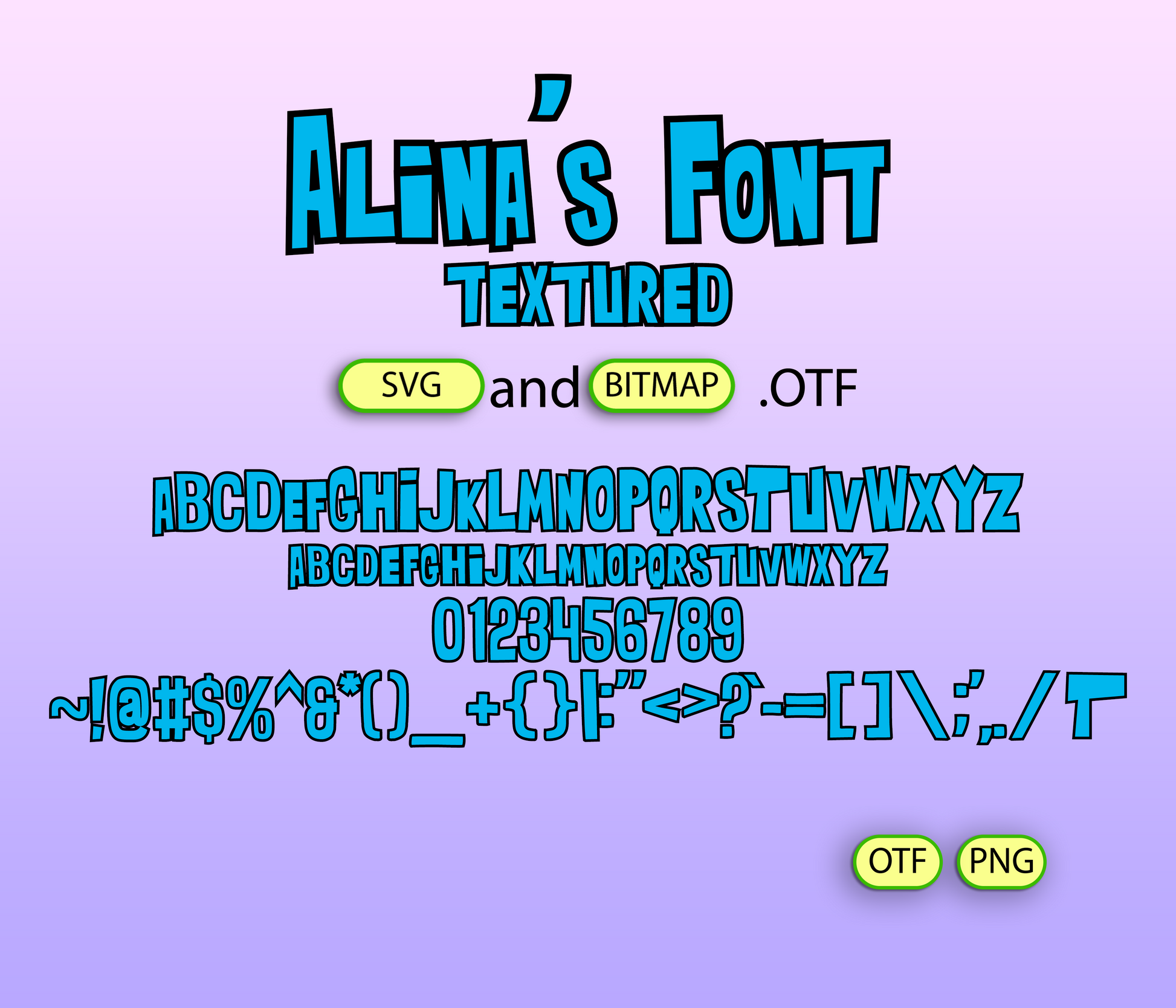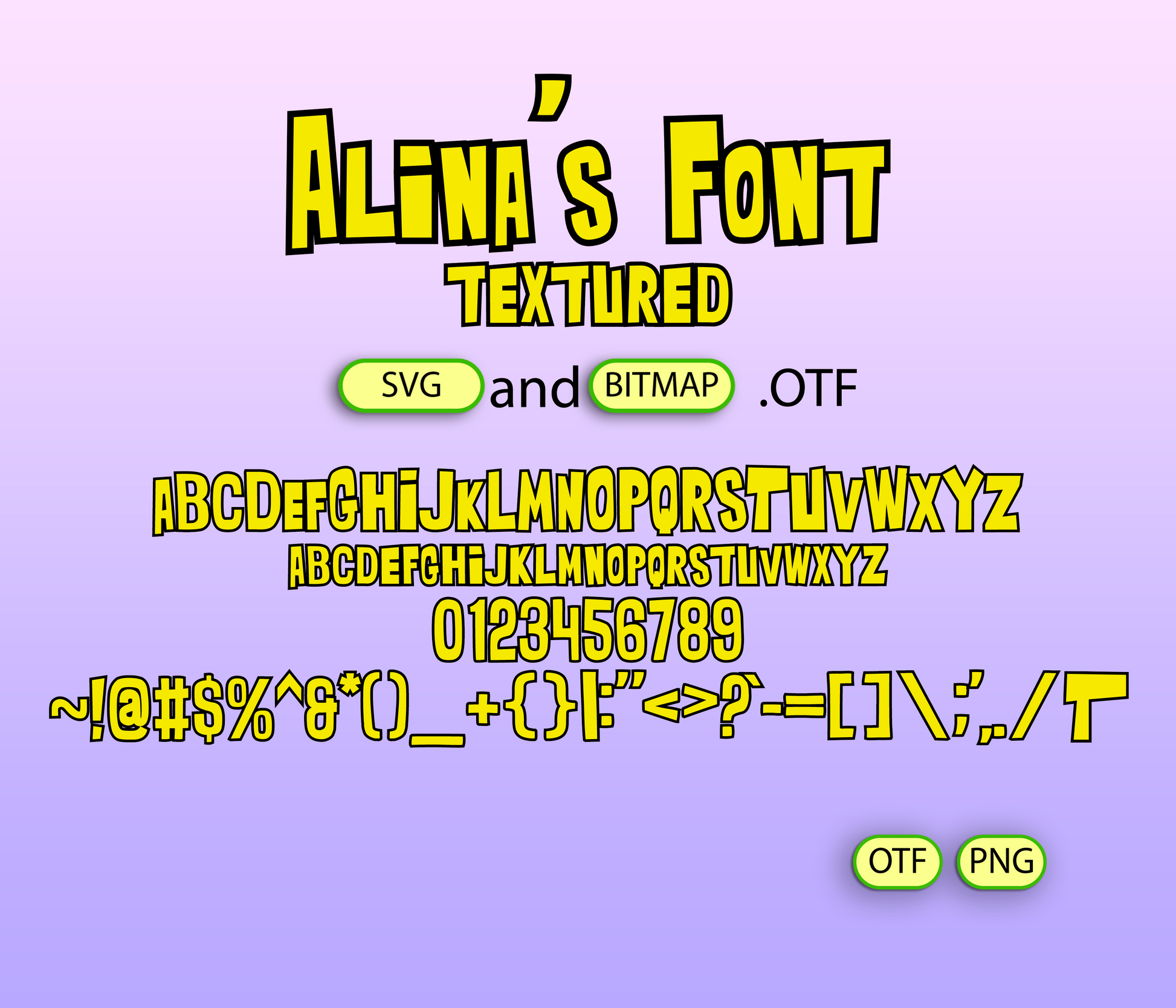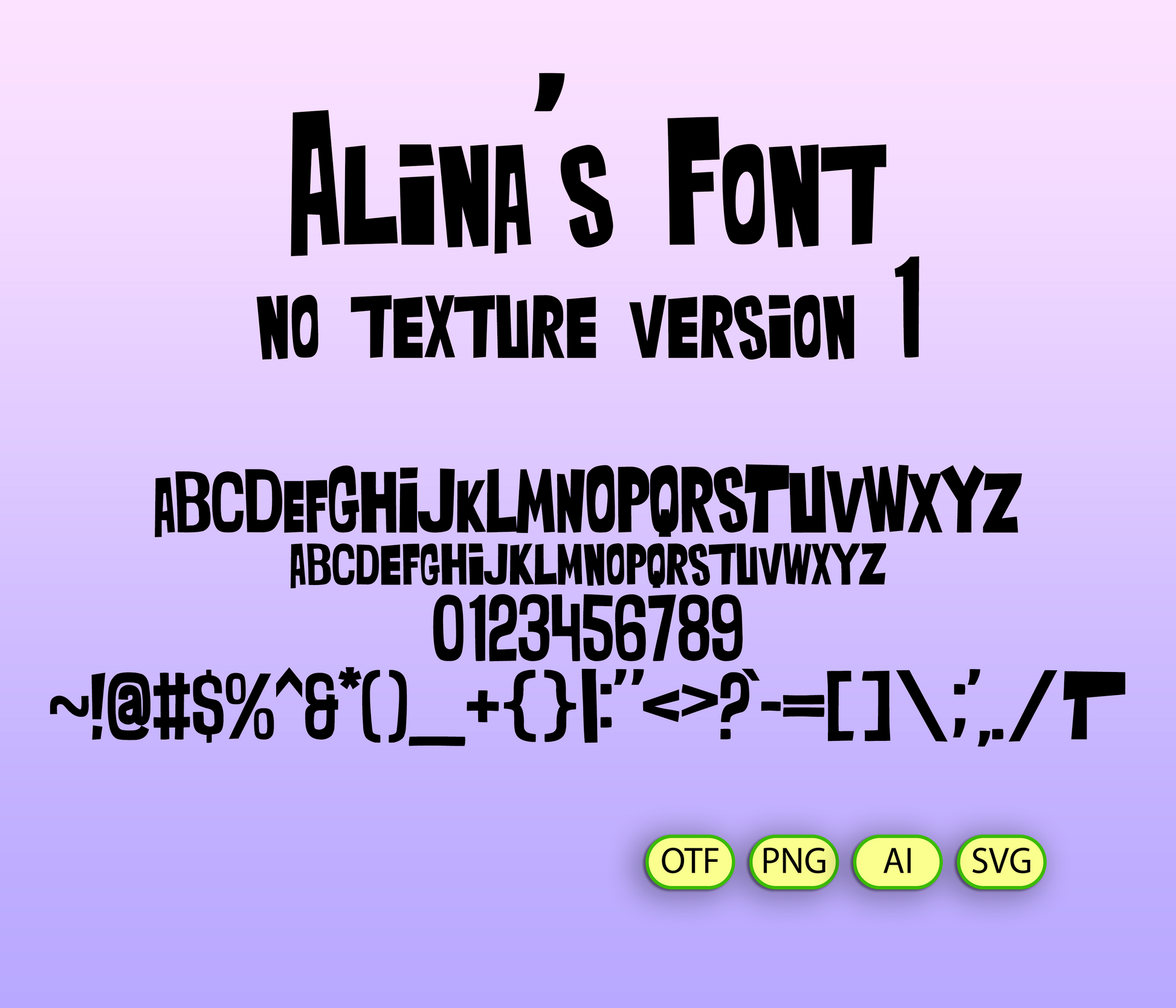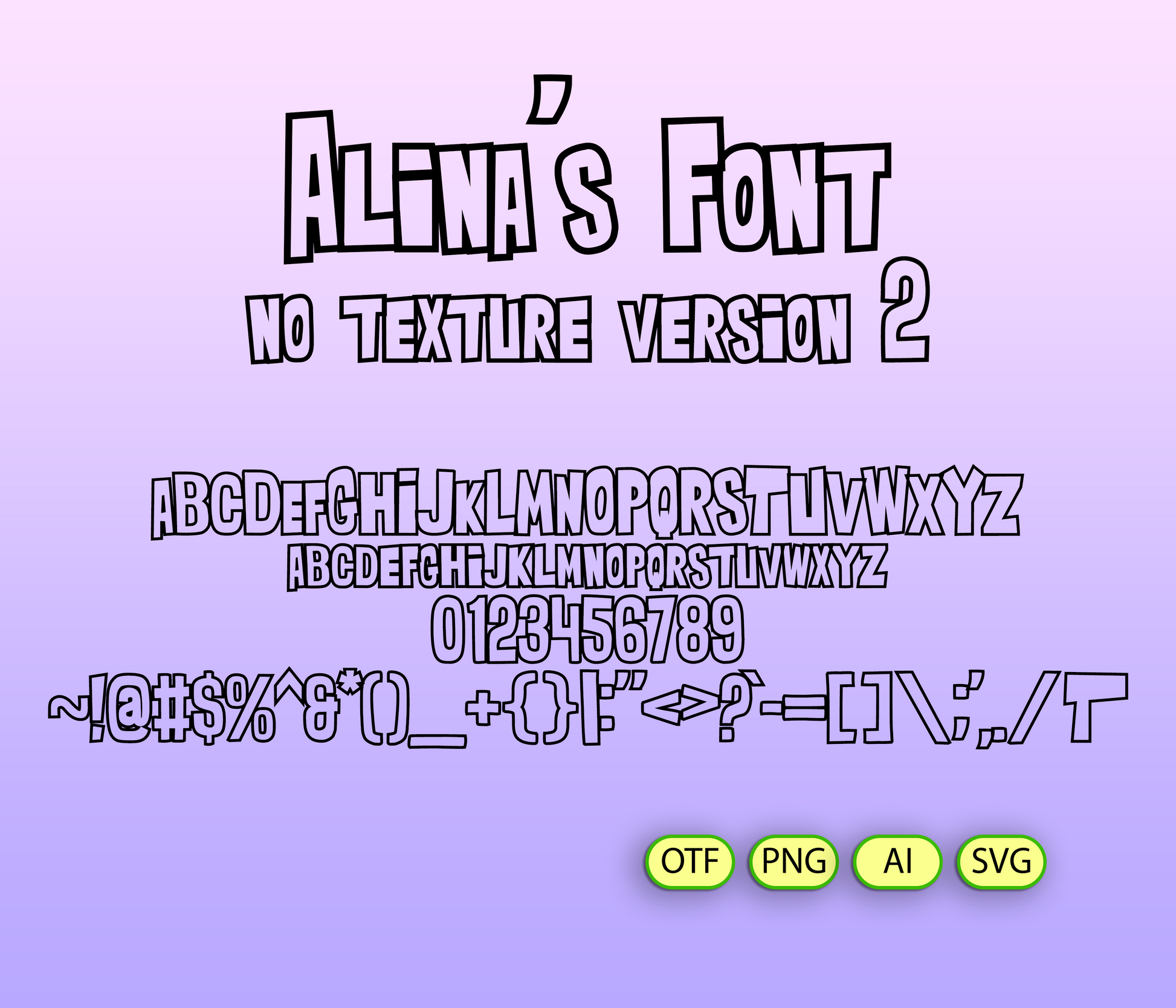
Teen Heroes Adventure Font Textured Bundle
Step into the whimsical world of young superheroes with our Teen Heroes Adventure font, capturing the essence of hilarious crimefighting and animated mischief. Perfect for animation fans, comic creators, event organizers, and designers, this font brings the dynamic, comedic spirit of these beloved young heroes to your projects. Create cartoon-themed materials, merchandise, or digital content with the high-energy fun of these teenage champions.
Our Teen Heroes Adventure font features playful, bouncy lines and energetic characters reflecting the comedic world of these young champions. Ideal for:
- Event Promotions: Create fun-filled invites, posters, and banners for animation screenings, comic conventions, and themed parties that capture the spirit of teen heroics.
- Merchandise Design: Perfect for t-shirts, posters, and accessories that showcase the silly side of superhero life.
- Digital Media: Enhance websites, blogs, and social media with dynamic headers and graphics that express the joy of animated adventures.
- Animation Content: Add authentic flair to fan art, comic strips, and creative projects inspired by teenage superhero antics.
- Personal Projects: Bring superhero excitement to scrapbooking, DIY crafts, and home decor inspired by the world of young justice.
Our font pays tribute to the beloved world of teenage superhero comedy, empowering your designs with its playful and energetic spirit. Whether crafting promotional materials, designing merchandise, or adding a dynamic touch to personal projects, this font communicates the bold essence of these young heroes. Ready to inject animated excitement into your creations? This font is your key to exciting, impactful design.